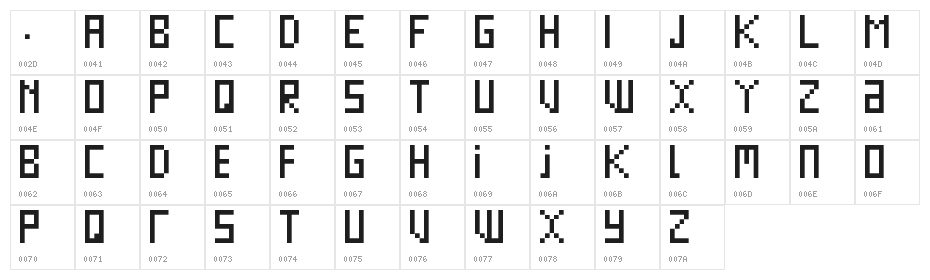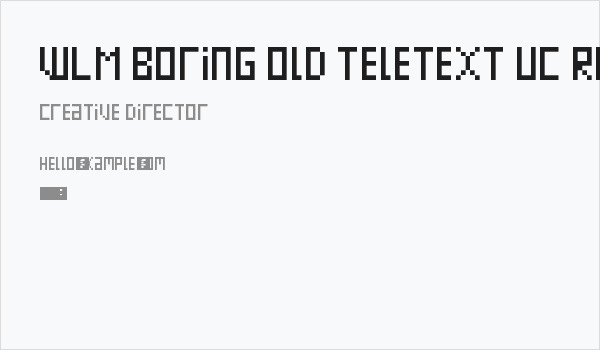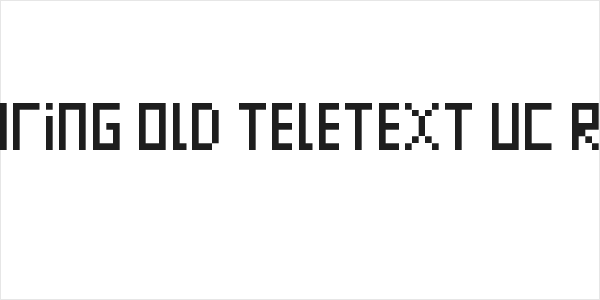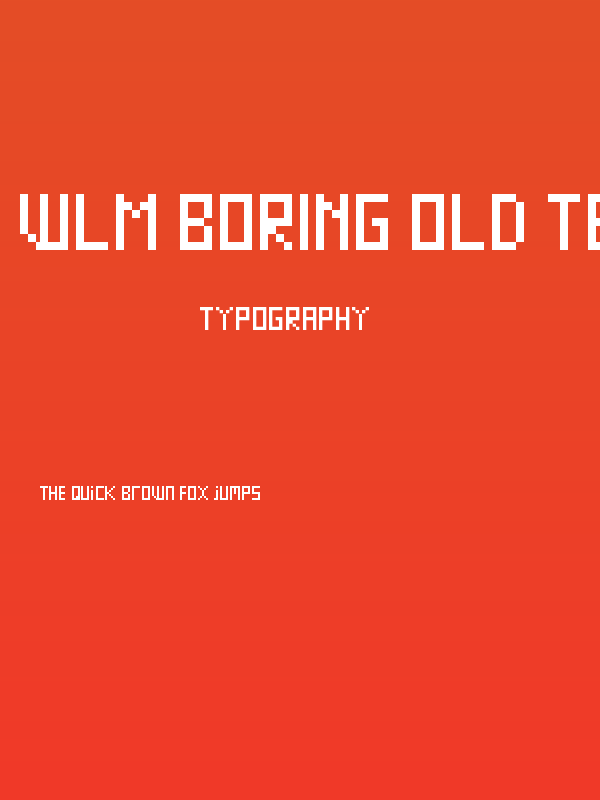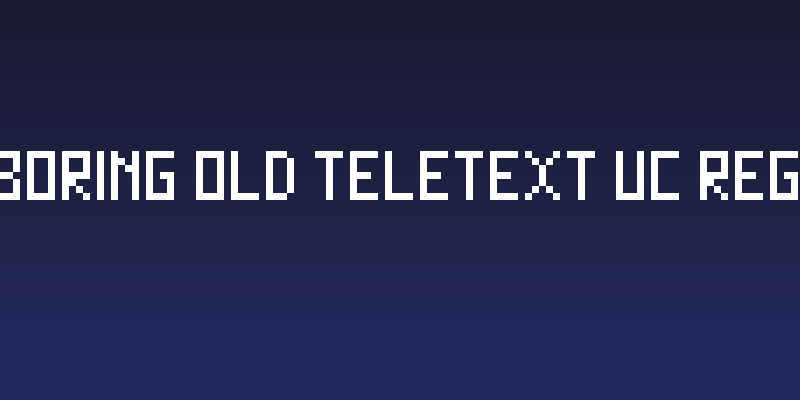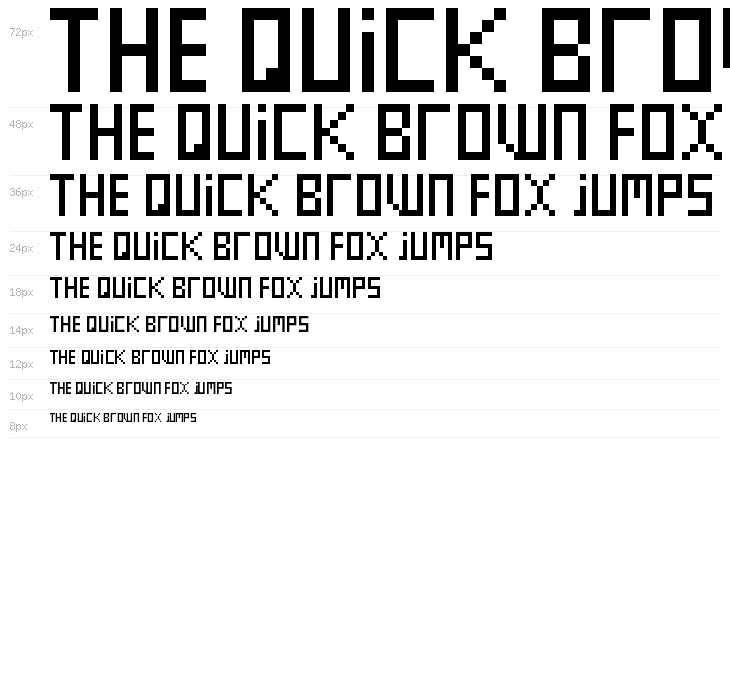
WLM Boring Old Teletext UC Regular Font
WLM Boring Old Teletext UC Regular Description
This font features a pixelated, blocky design reminiscent of early digital displays and teletext systems. Each character is constructed with a grid-like precision, giving it a distinctly retro and digital feel. The uppercase and lowercase letters maintain a uniform height, contributing to its monospaced appearance. The numerals and special characters follow the same pixelated style, ensuring consistency across all glyphs. This font's simplicity and geometric form make it ideal for projects that aim to evoke nostalgia or a vintage digital aesthetic. Its clarity and straightforward design ensure readability even at smaller sizes.
| Use Case | Headlines, Logos, Digital displays |
| Proposed Projects | Ideal for retro-themed designs, digital art projects, video game interfaces, and any creative work that seeks to capture the essence of early computing or teletext systems. |